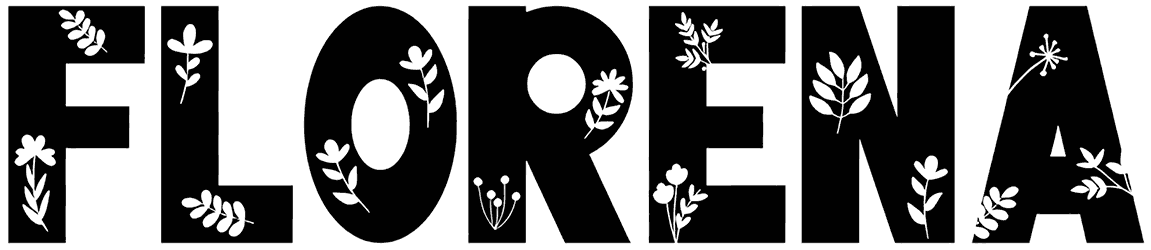
Florena Font
These days, many graphic designers are facing the lack of a floral font that contains a natural symbol to bring your creative ideas to real life, so we are here to introduce you to Florena.
Although it doesn’t support lowercase letters and punctuations, due to the flowers that are used in designing this typeface, you can establish a sense of femininity, softness, and momentum in posters, business cards, photo editing, book covers, social media posts, and labels.